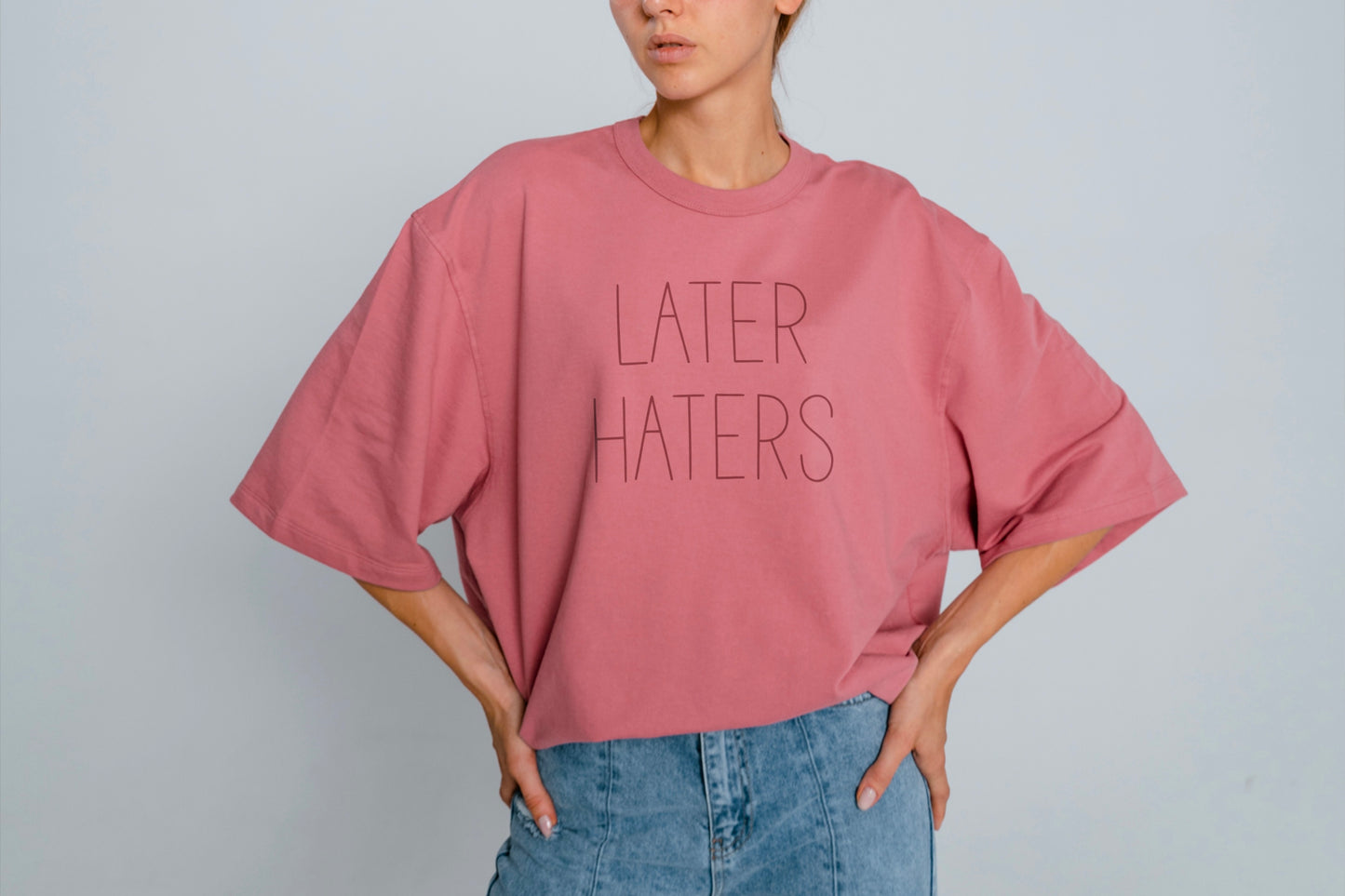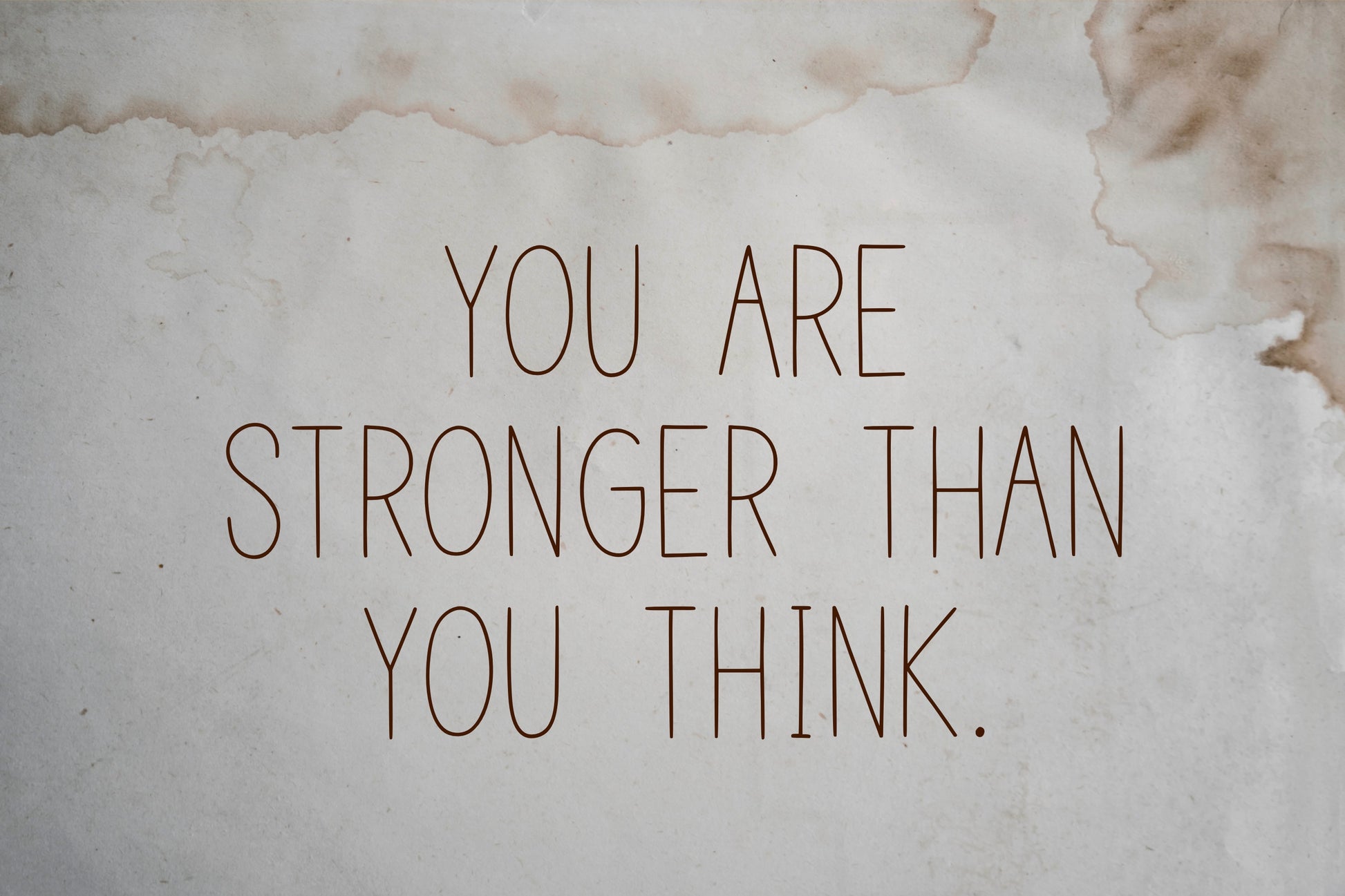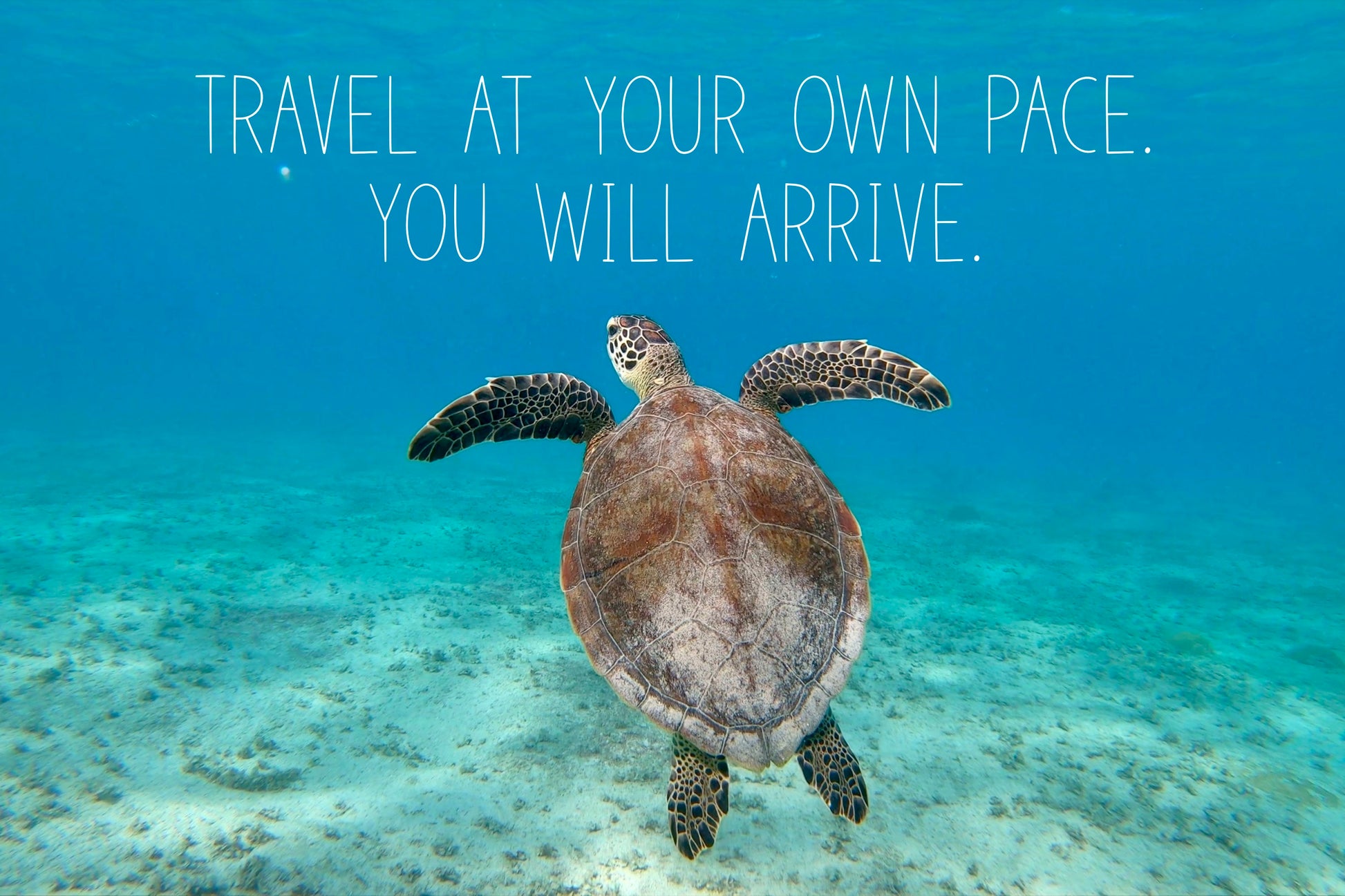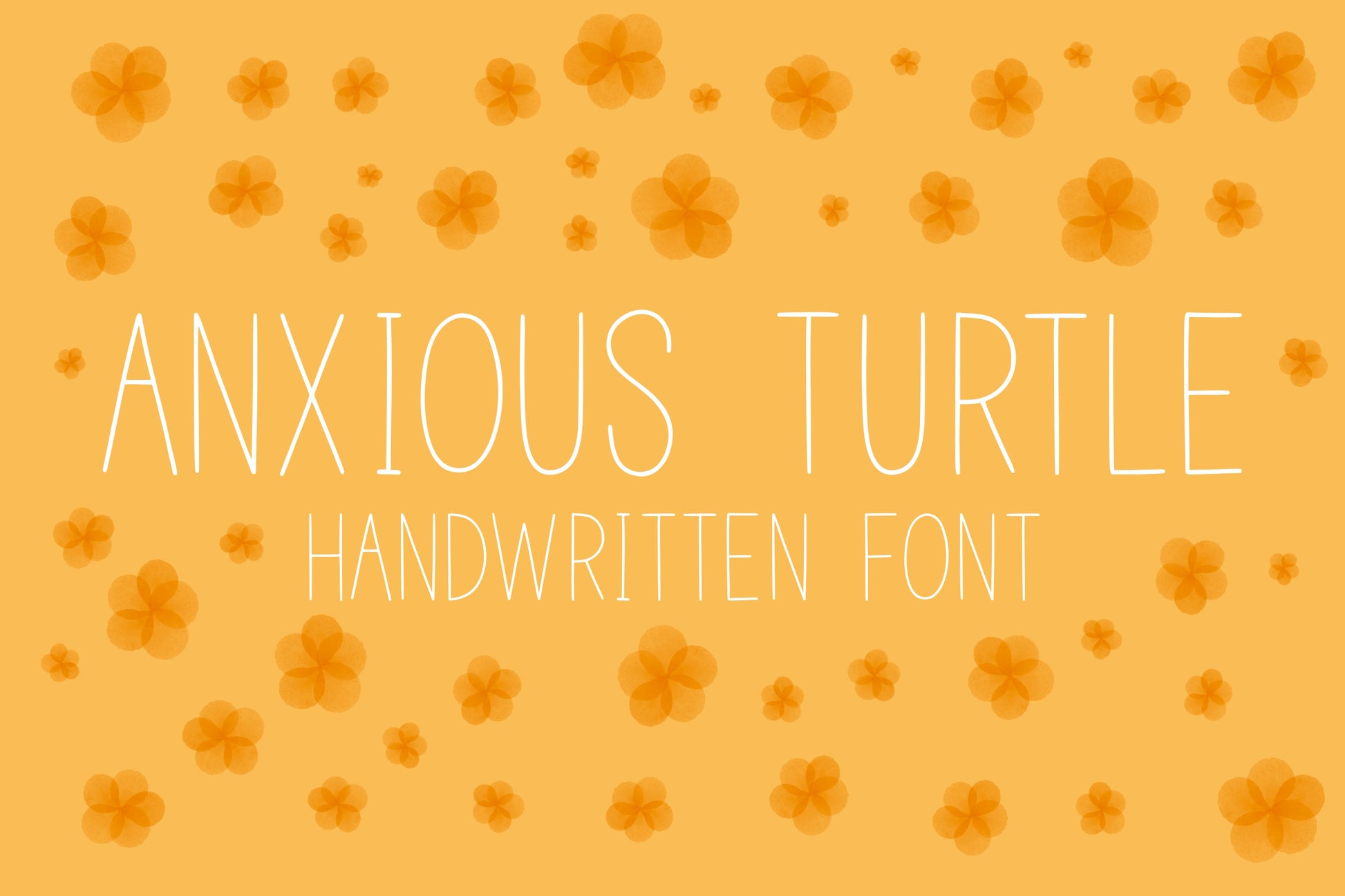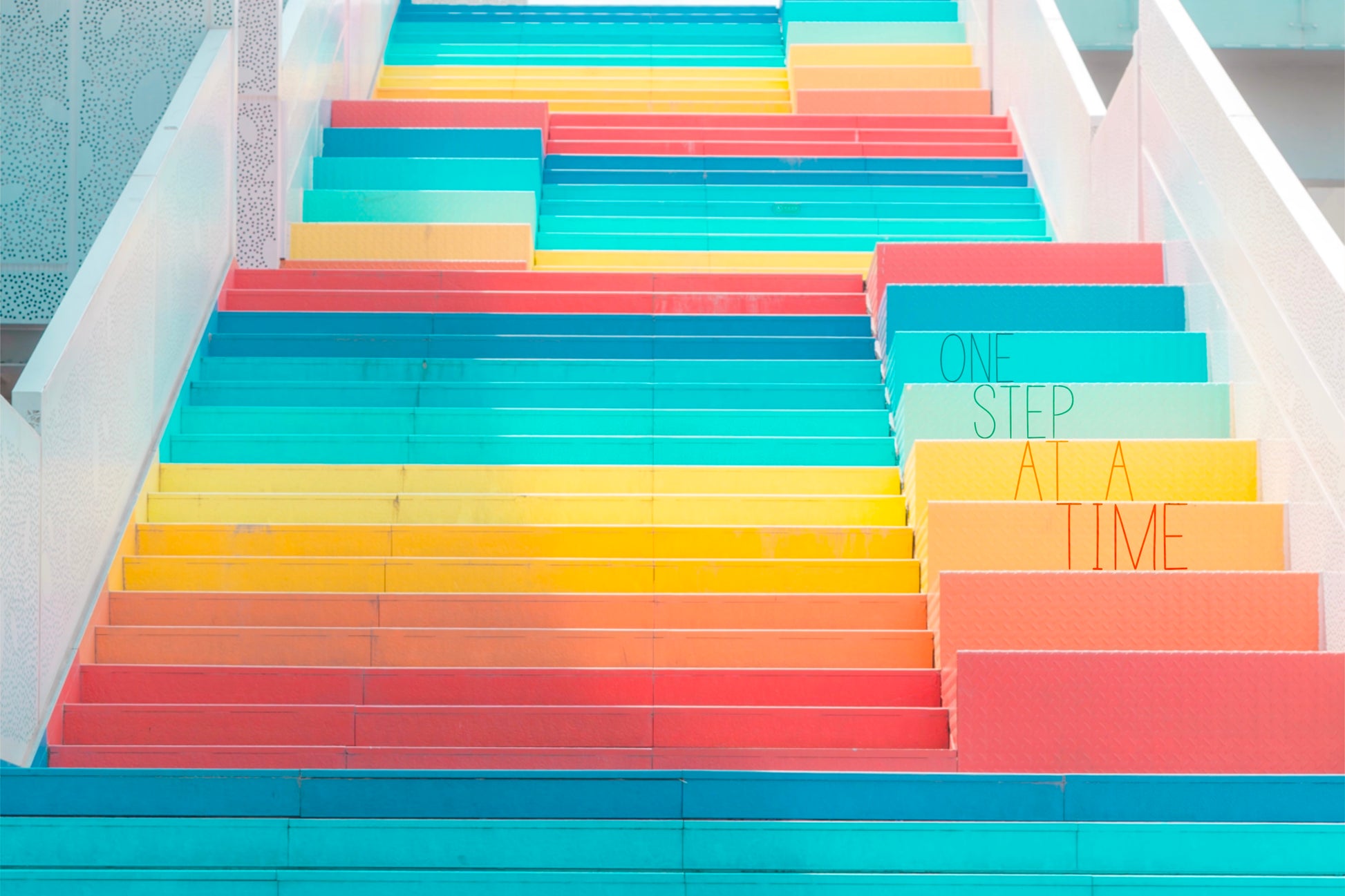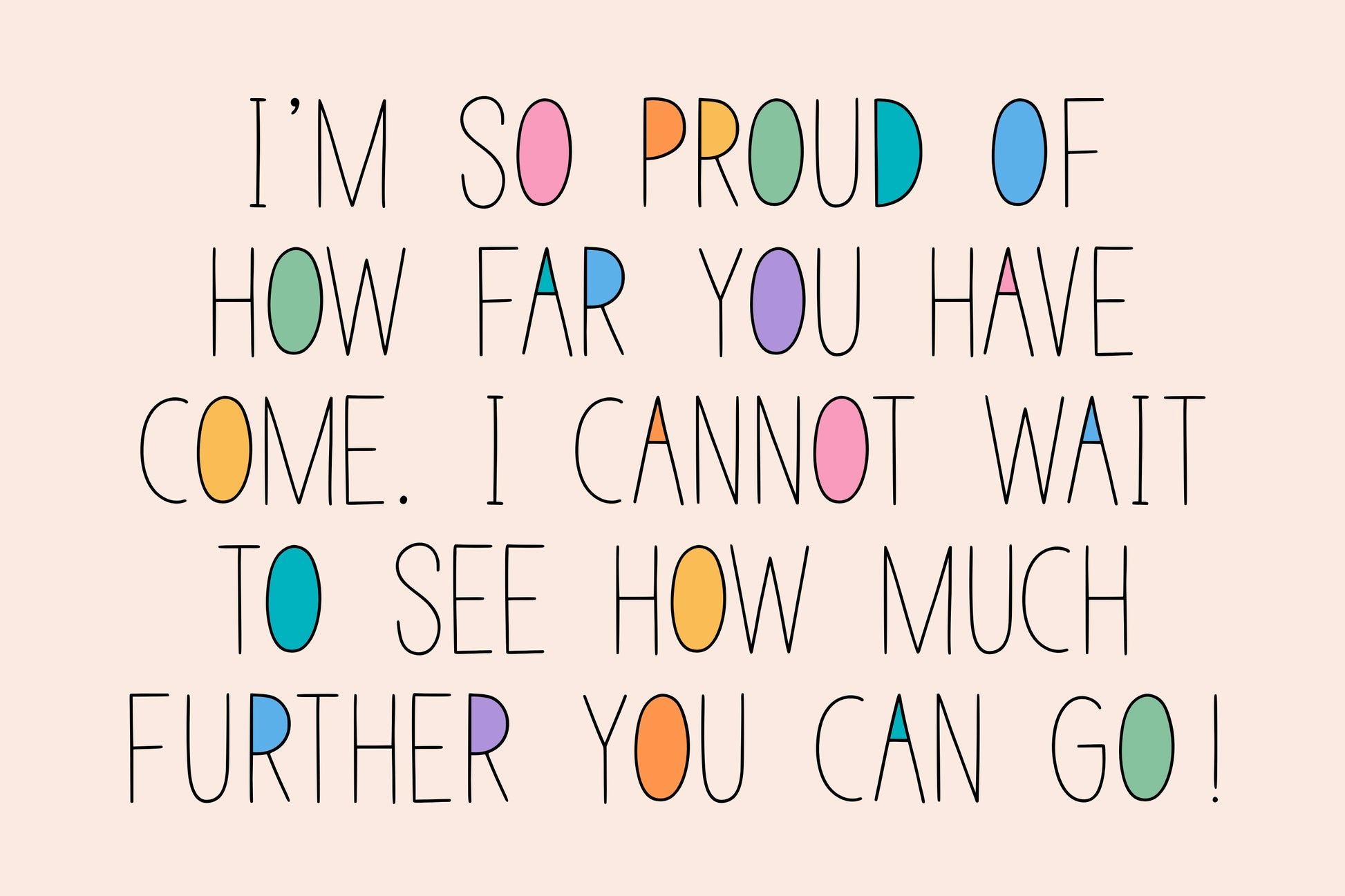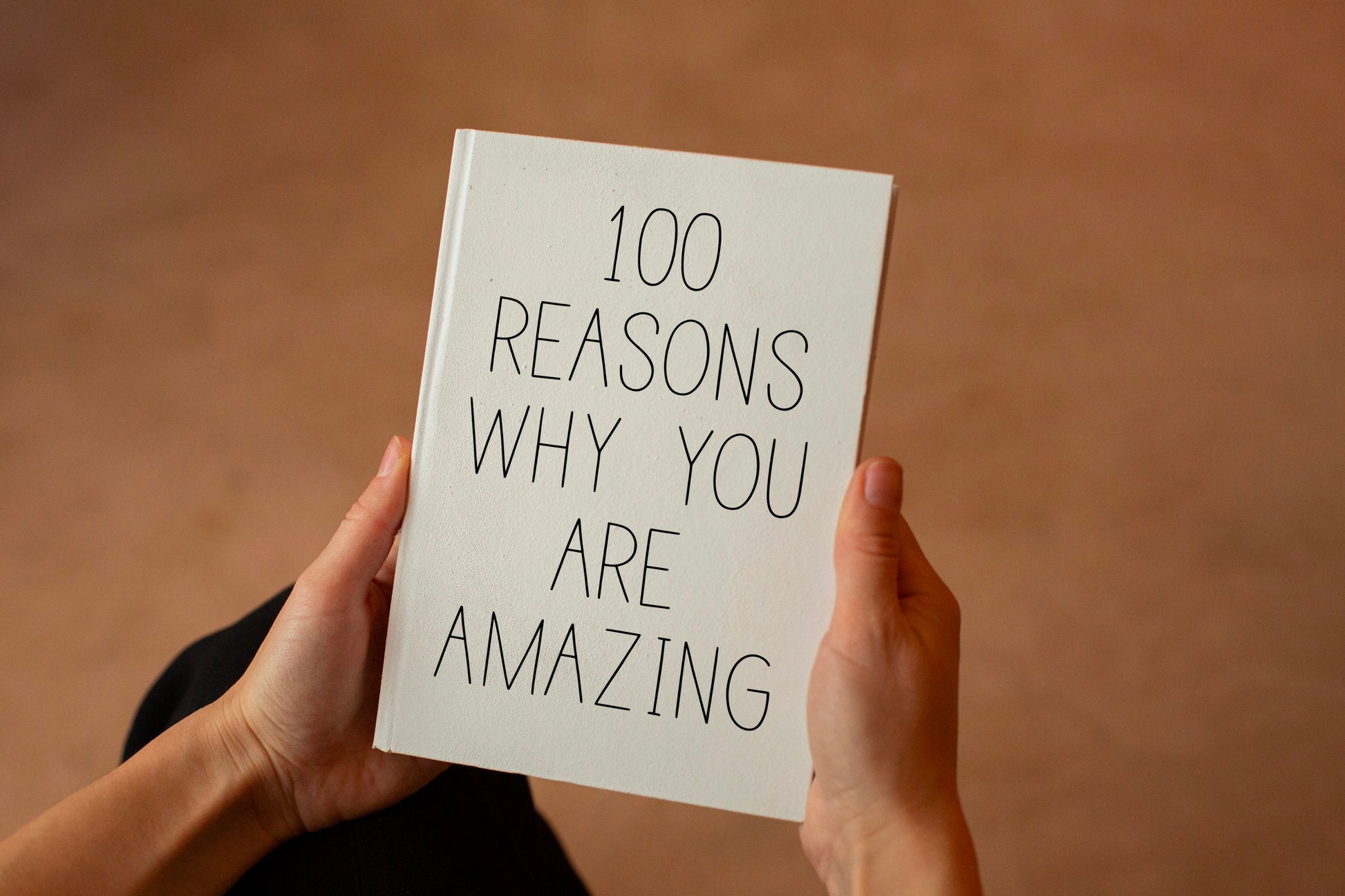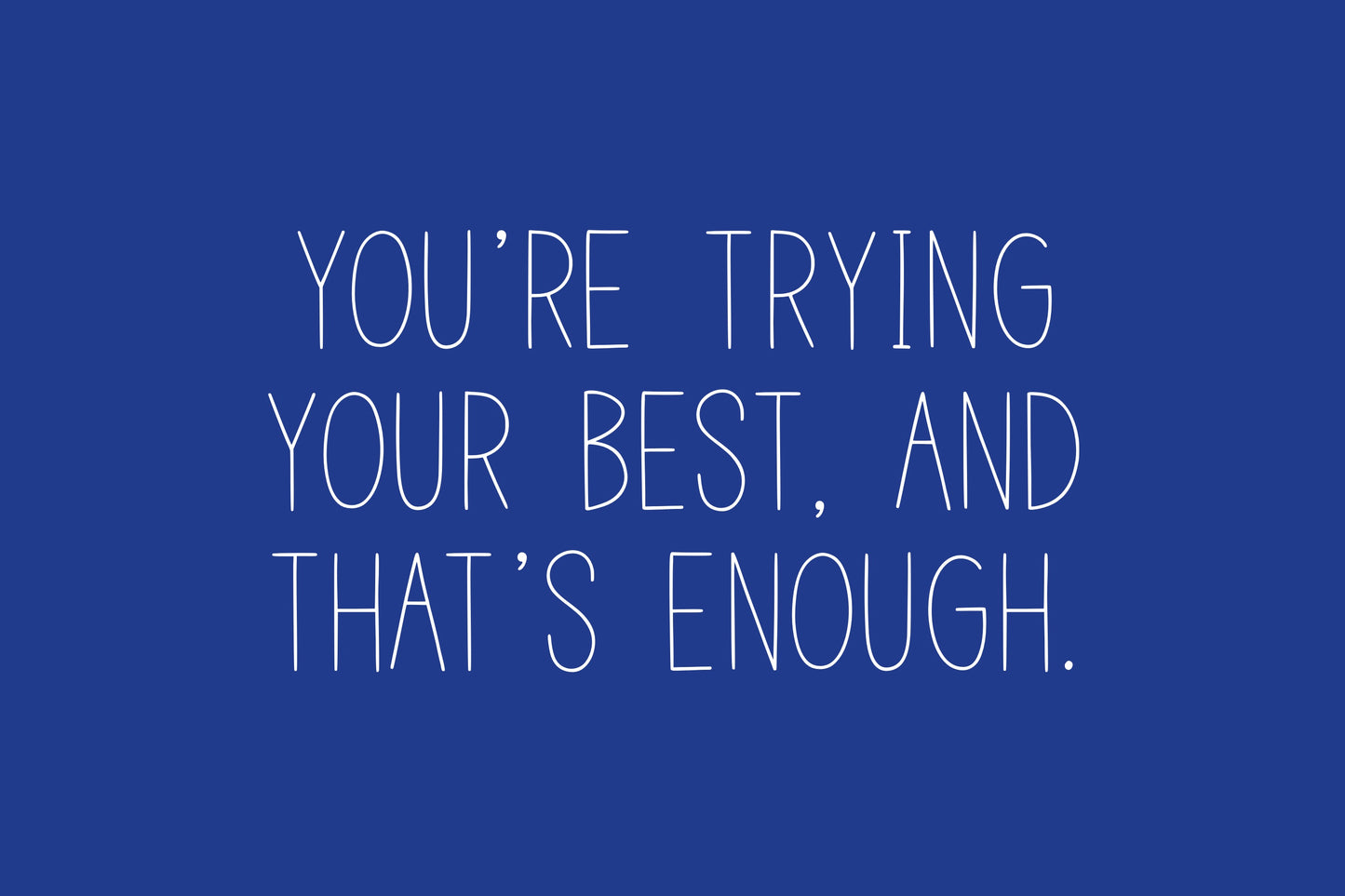
Anxious Turtle Handwritten Font
Introducing the Anxious Turtle handwritten/hand drawn font. This unique, thin, all caps font will add a fun, quirky, handmade touch to your design! It’s perfect for logos, notes, posters, t-shirts, stickers, posters, mugs, labels, etc.